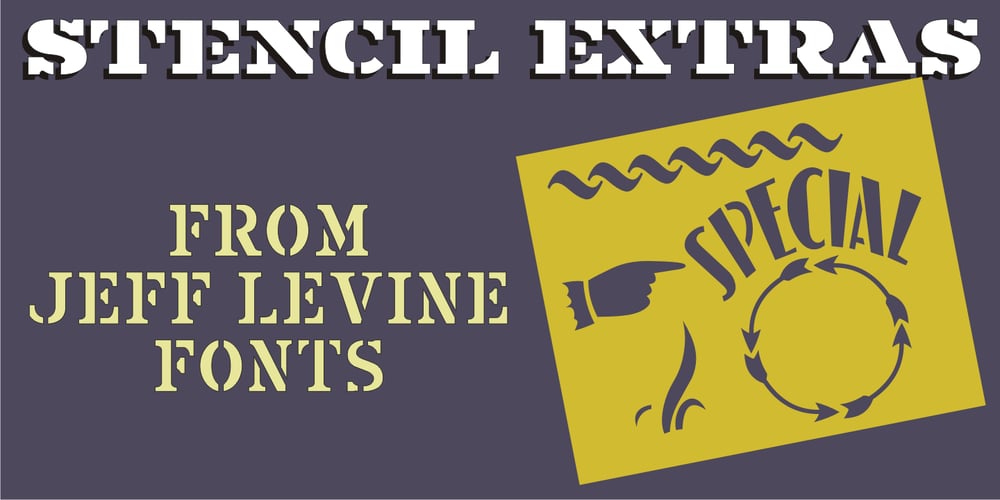
Stencil Extras JNL
Stencil Extras JNL font
Stencil Extras JNL Font Family was designed by Jeff Levine and published by Jeff Levine. Stencil Extras JNL contains 1 styles and family package options. Stencil Extras JNL contains twenty-six stencil borders, frames, arrows, pointing hands, plants, wildlife and decorative embellishments all re-drawn from vintage source material.